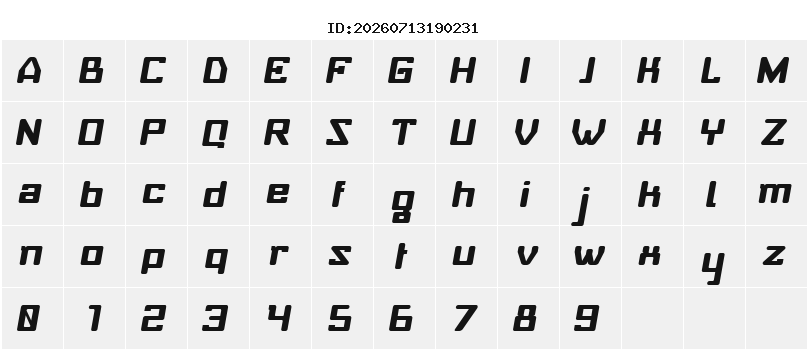
• Font Name: Baby Universe
• Full Font Name: Baby Universe Italic
About Baby Universe.ttf
Baby Universe.ttf is a modern, elegant sans-serif font designed for ultimate readability and visual harmony. Perfect for branding, headlines, web design, and print materials.